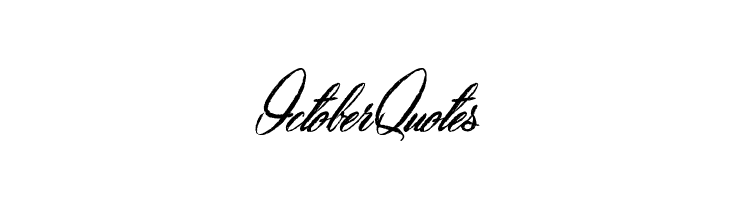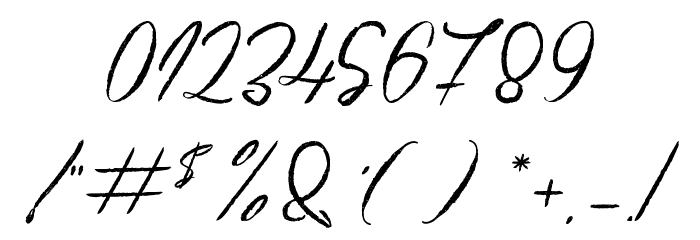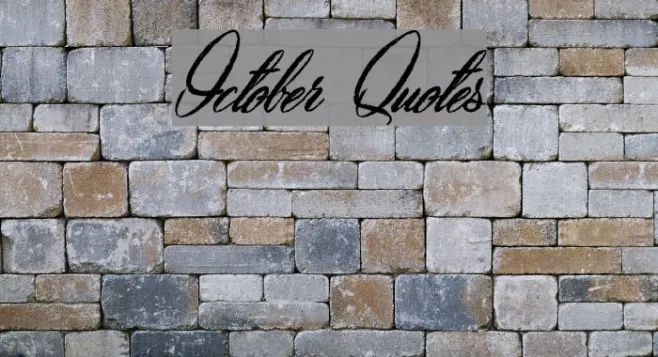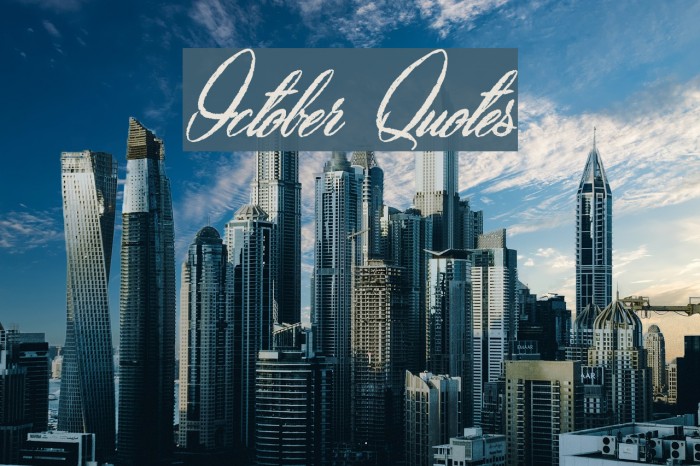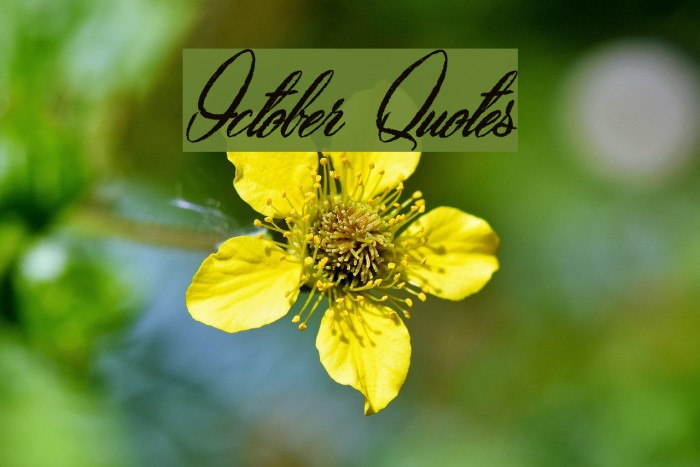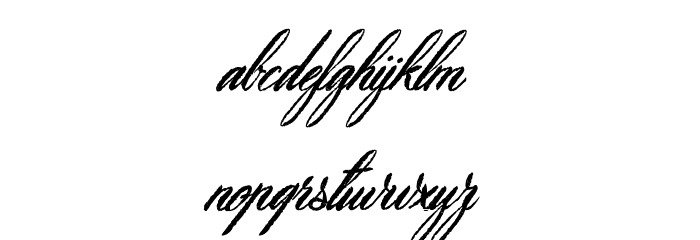
October Quotes Font
October Quotes Description
This elegant script font features flowing, cursive strokes that emulate the fluidity of handwritten calligraphy. The uppercase letters are grand and sweeping, with a distinct slant that adds a dynamic feel to the text. The lowercase letters maintain a consistent style, with smooth connections between characters, enhancing readability while preserving the artistic flair. Numbers and special characters are crafted with the same attention to detail, ensuring a cohesive look across all elements. This font exudes sophistication and charm, making it ideal for projects that require a personal, yet polished touch.
| Overall Style | Elegant |
| Use Case | Logos, Invitations, Greeting Cards |
| Proposed Projects | Ideal for wedding invitations, greeting cards, elegant branding, and personal stationery. |